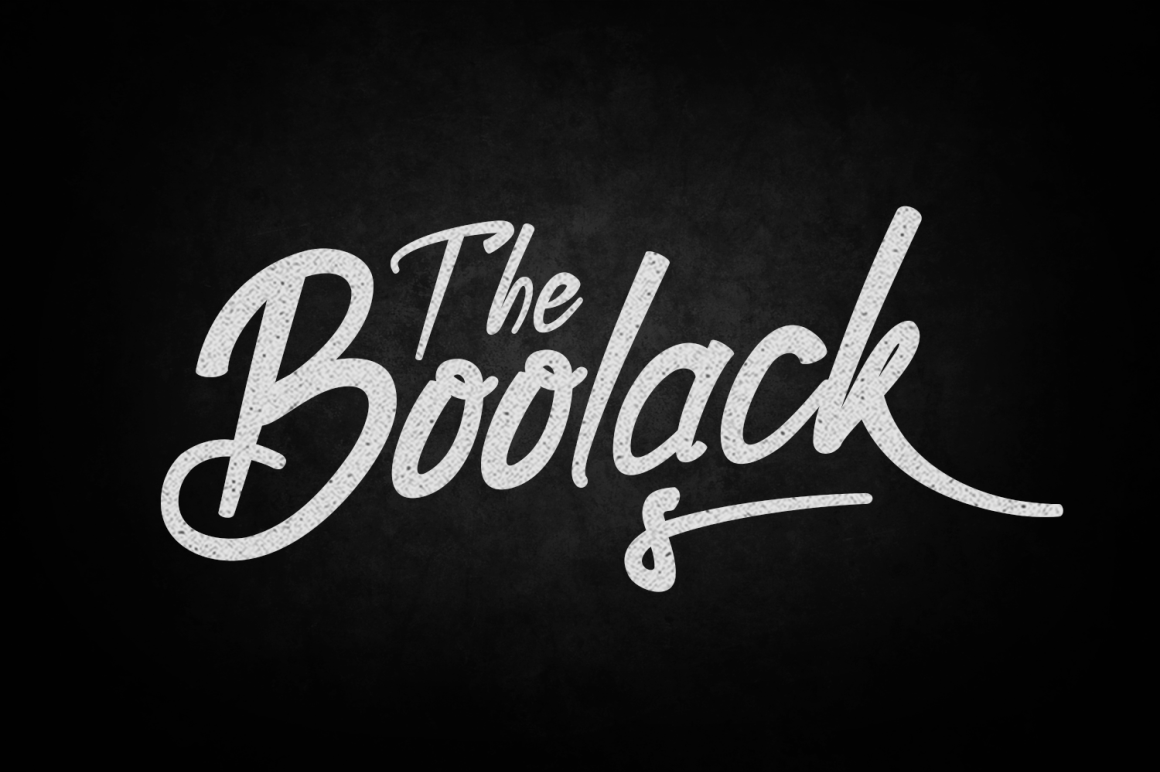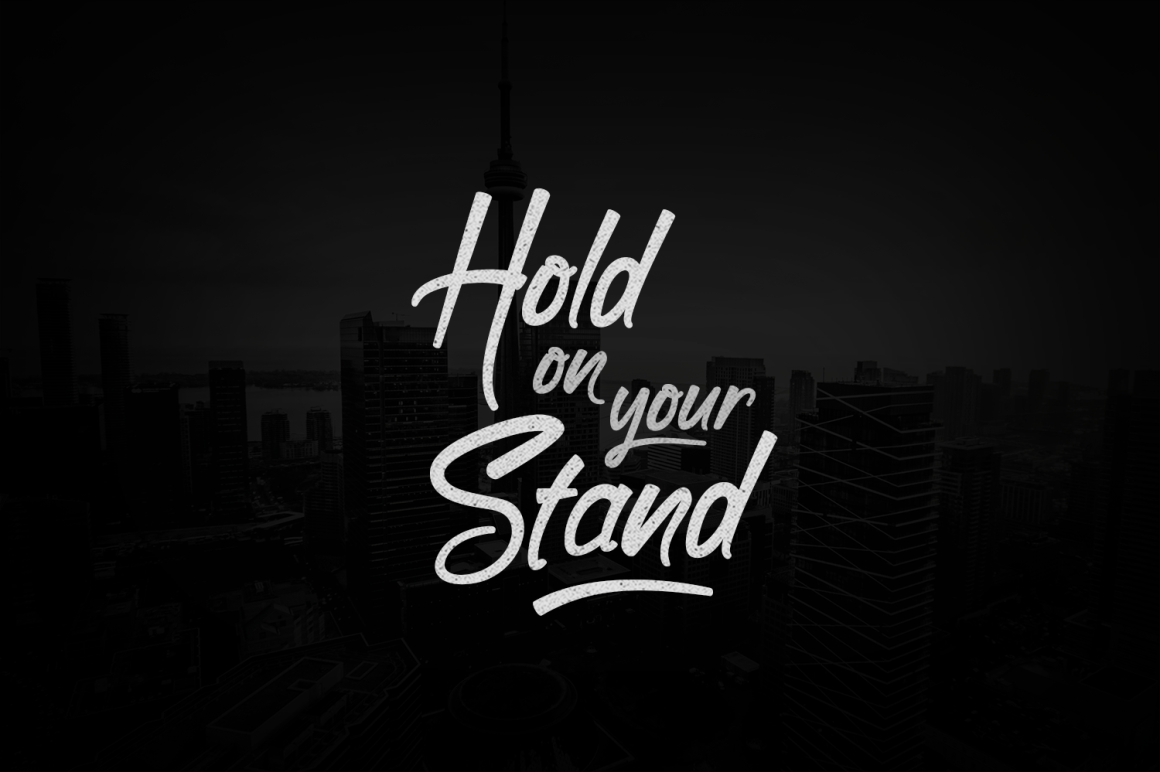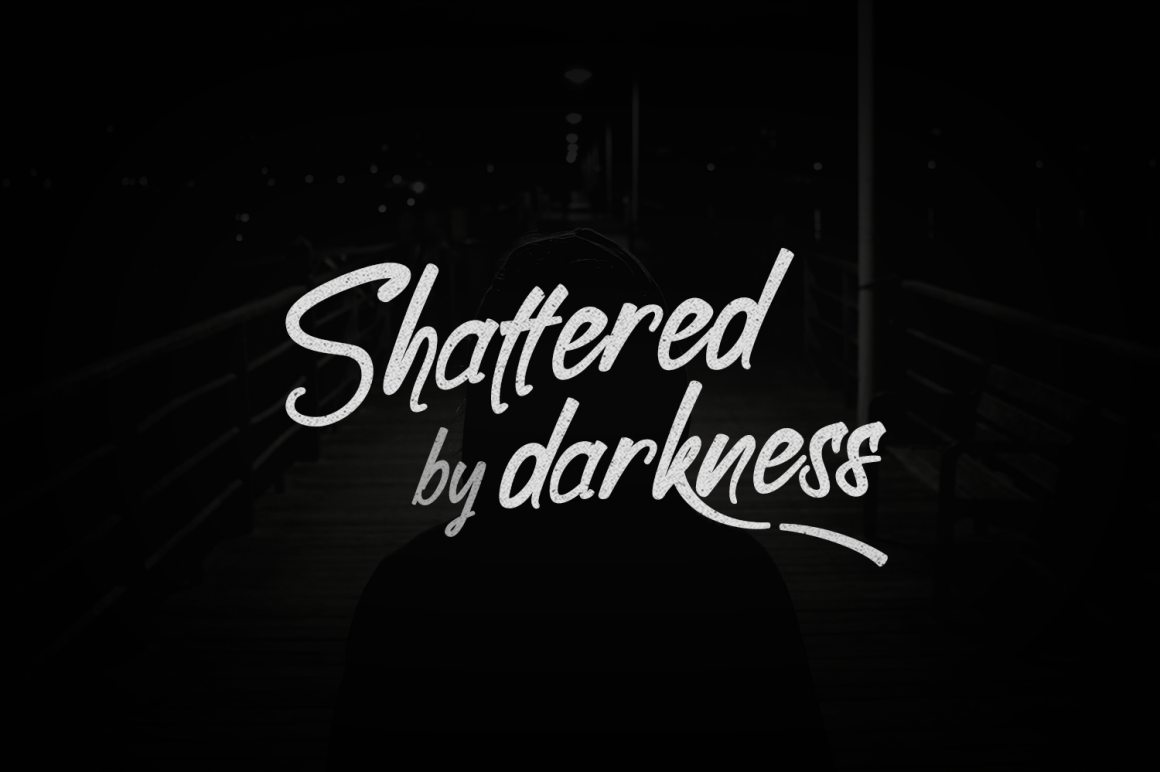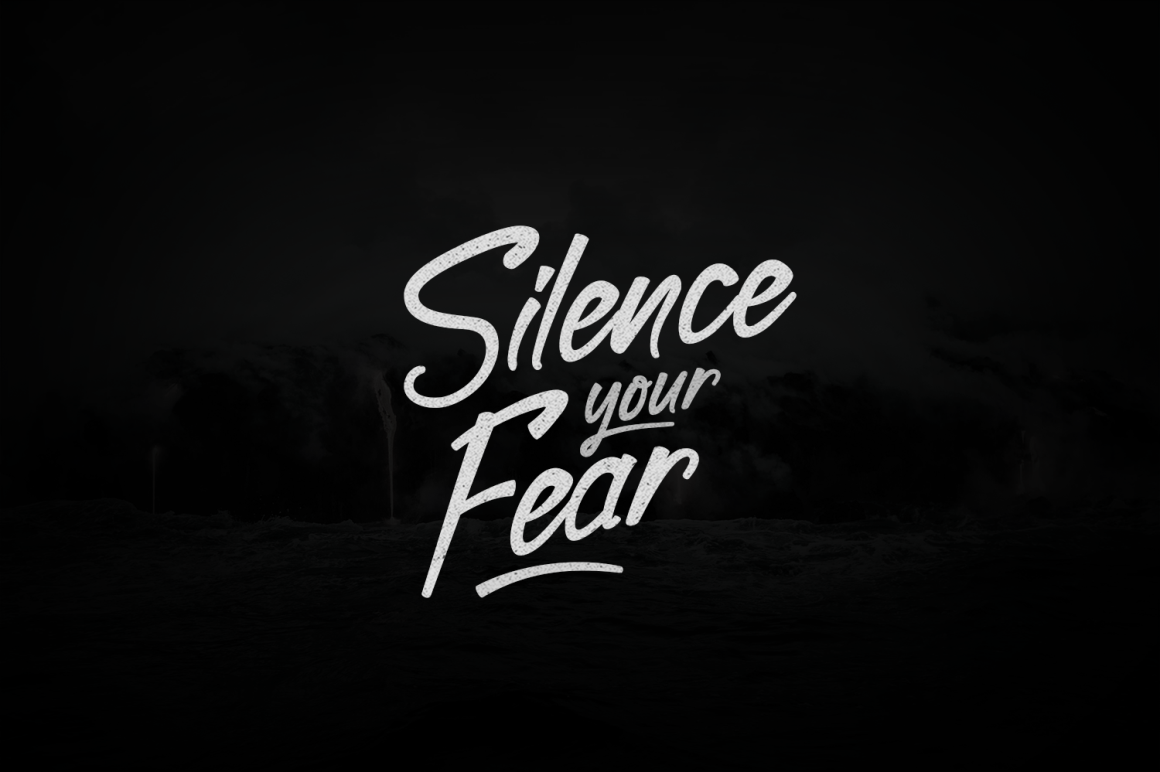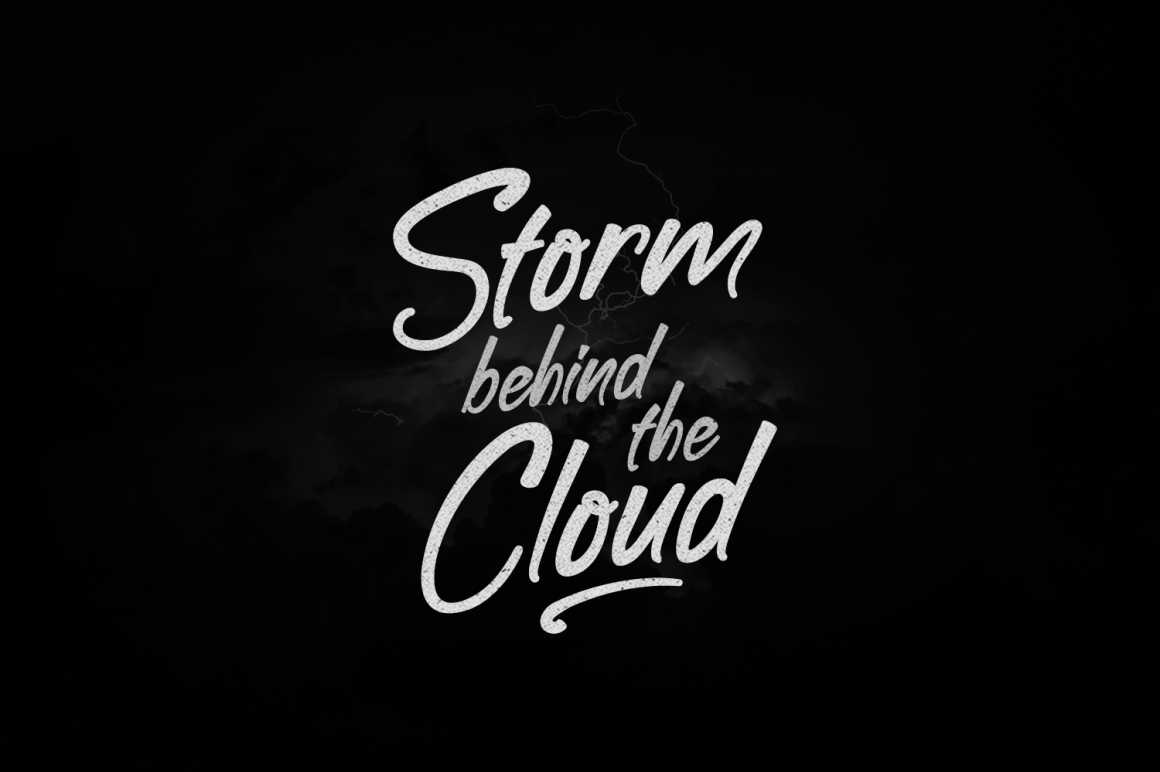
Boolack Font
About Boolack Font
Boolack is a beautiful and bold script font, ideal for outspoken designs and headline type. This font comes with alternates for unique and impactful design, and is bold enough to be used in different design scapes as well.